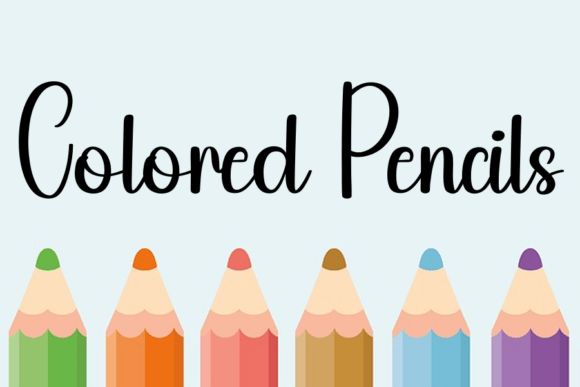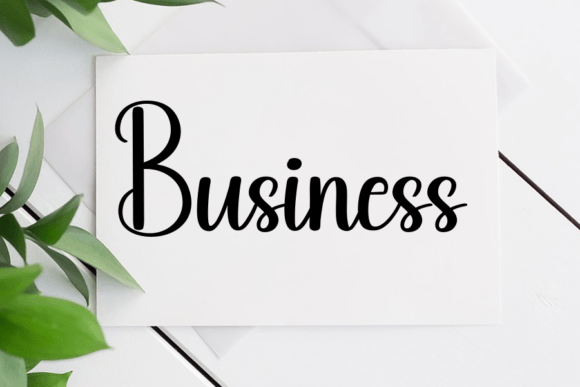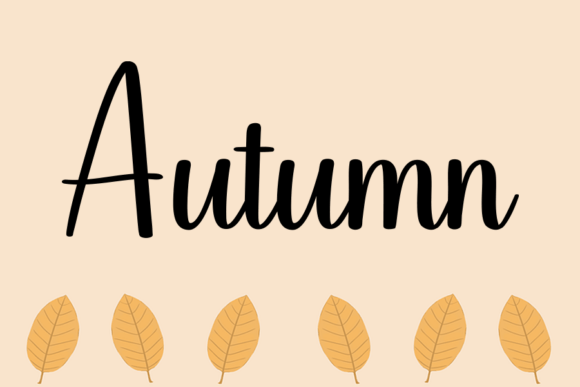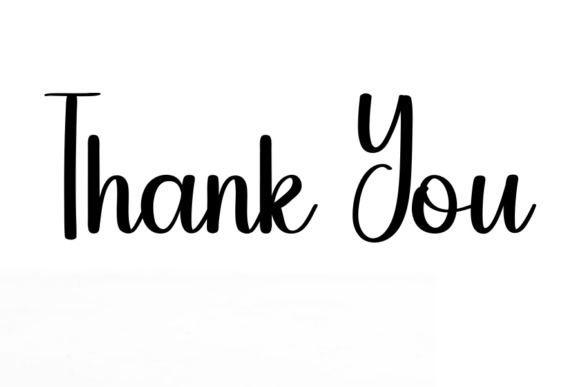
Discover the Perfect Pen Stroke: Bestie Font
You’ve finally found the perfect idea for a wedding invitation, but something’s missing – a touch of whimsy that sets it apart from the rest. That’s when you stumble upon the perfect pen stroke, a handwritten font that captures the essence of your design.
Meet the Bestie Font, a sweet and cursive handwritten font that adds a joyful and romantic touch to any project. Whether you’re designing a logo, wedding stationery, or greeting cards, Bestie Font is the perfect fit. Its elegant and casual vibe makes it a valuable asset for designers who want to elevate their designs without sacrificing a personal touch.
Key Features of Bestie Font
• Unique Characteristics: The font features a playful, cursive script with a modern twist, making it perfect for creative and informal designs.
• Kerning and Ligatures: The font includes advanced kerning and ligature pairs, ensuring smooth and seamless text rendering.
Bestie Font Review
Overall, I think Bestie Font is a solid choice for designers looking for a fun and playful script font. It’s ✨ perfect for social media graphics, blog posts, and other digital content where a friendly tone is desired. The font is highly customizable, with a range of weights and styles to choose from, making it easy to find the right fit for your project.
• Works well for digital content, such as social media graphics and blog posts
• Highly customizable, with a range of weights and styles
• Perfect for designers looking for a fun and playful script font
However, there are some limitations to consider. The font can feel a bit overused and clichéd in certain contexts, and the character set is limited, which can make it difficult to use for longer blocks of text. Additionally, the font’s ✨ playful nature can sometimes feel forced or artificial.
• Can feel overused and clichéd in certain contexts
• Limited character set, making it difficult to use for longer blocks of text
• Font’s playful nature can feel forced or artificial in some cases
Overall, I would recommend Bestie Font for designers who are looking for a fun and playful script font for digital content. While it may not be the best choice for more formal or professional projects, it’s a great option for those who want to add a bit of personality to their designs.
Tips for Getting the Most Out of Bestie Font
To get the most out of Bestie Font, try the following:
• Combine Bestie Font with bold or italic fonts for added emphasis
• Use Bestie Font in conjunction with graphics and images for a visually appealing design
• Experiment with different font sizes and colors to create a unique look
Common Use Cases for Bestie Font
Bestie Font is ideal for: